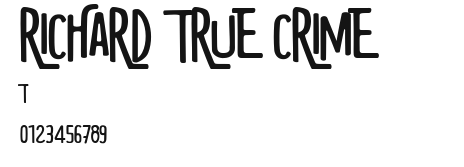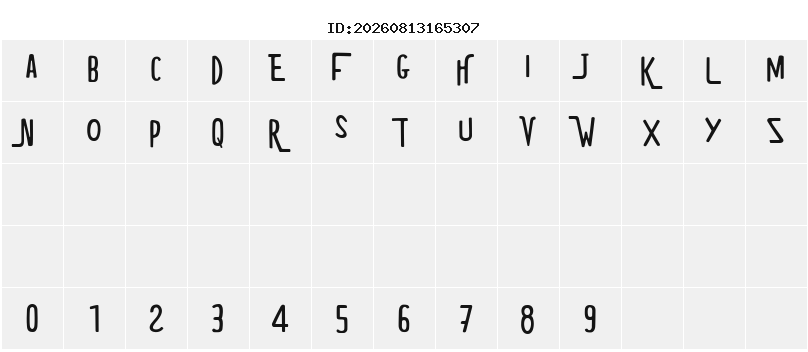
• Font Name: RICHARD TRUE CRIME
• Designer: Maelle.K
RICHARD TRUE CRIME.ttf is a modern, elegant sans-serif font designed for ultimate readability and visual harmony. Perfect for branding, headlines, web design, and print materials.